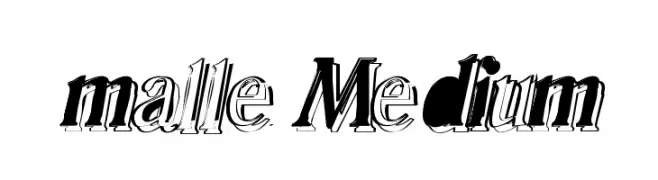
A bold, playful font with a three-dimensional shadow effect.
A bold, three-dimensional font with a vintage, comic book style.
A three-dimensional geometric font with a dynamic and intricate design.
A bold, decorative font with a striped, three-dimensional effect.
A bold, playful font with a three-dimensional effect and rounded, irregular characters.
A bold, shadowed font with a modern, three-dimensional appearance.